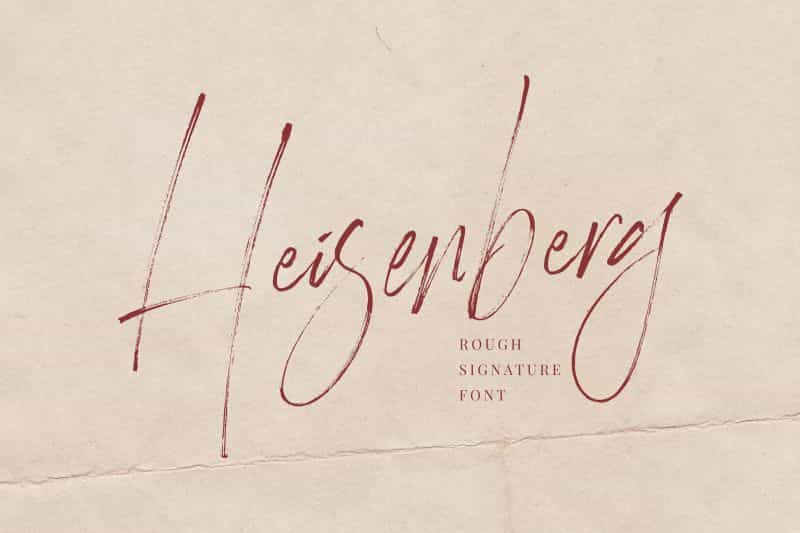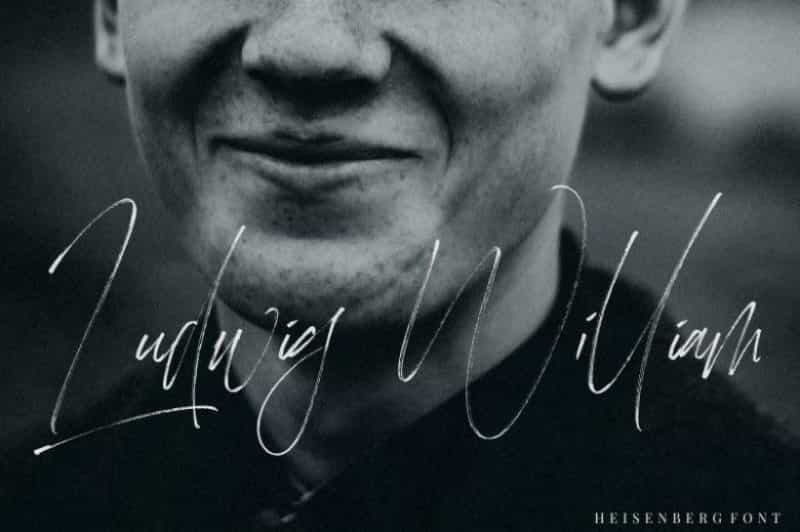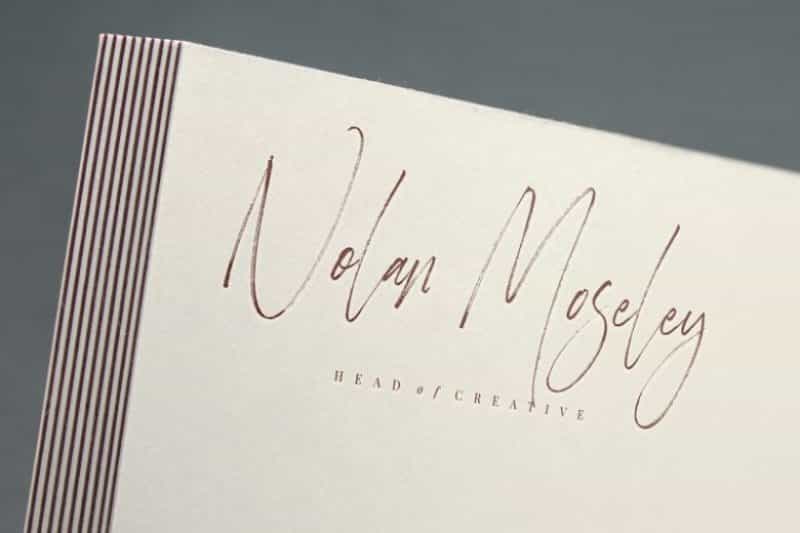
Heisenberg, as a font, is wild, defined by the flow, natural involvement that does not look classy. This is considered a manual font which has been done without much of a structured design pattern but in a very liberal manner.